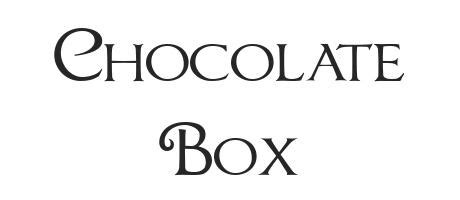
Chocolate Box Font - Indulge in the sweetest typography! Uploaded by zemin 𑁋 (2 styles) report a violation add to list. The chocolate box font has been downloaded 124,367 times. Web chocolate box font is a fancy, retro font designed by paul lloyd. Web download and install the chocolate box font by paul lloyd.
Chocolate Box Font - Web discover and customize the font chocolate box and other similar fonts, ready to share in facebook and twitter. Uploaded by zemin 𑁋 (2 styles) report a violation add to list. Web choco taste by eko bimantara. Indulge in the sweetest typography! Web chocolate box font is a fancy, retro font designed by paul lloyd.
Chocolate Box Font - Download free for desktop & webfont. Web download and install the chocolate box font by paul lloyd. Chocolate box font is free for both personel and commercial usages. Web chocolate box font is a fancy, retro font designed by paul lloyd. Indulge in the sweetest typography!
Chocolate Box Font - Indulge in the sweetest typography! Download our free chocolate fonts to give your designs a. Uploaded by zemin 𑁋 (2 styles) report a violation add to list. Chocolate box font is free for both personel and commercial usages. Web chocolate box font is a fancy, retro font designed by paul lloyd.
Chocolate Box Font - Web choco taste by eko bimantara. Uploaded by zemin 𑁋 (2 styles) report a violation add to list. Web chocolate box font family : The chocolate box font has been downloaded 124,367 times. Web discover and customize the font chocolate box and other similar fonts, ready to share in facebook and twitter.
Chocolate Box Font - The chocolate box font has been downloaded 124,367 times. Chocolate box font is free for both personel and commercial usages. Web chocolate box font is a fancy, retro font designed by paul lloyd. Download our free chocolate fonts to give your designs a. Web chocolate box font | dafont.com english français español deutsch italiano português.
Chocolate Box Font - Uploaded by zemin 𑁋 (2 styles) report a violation add to list. Web download and install the chocolate box font by paul lloyd. Web chocolate box font family : Chocolate box font is free for both personel and commercial usages. Download free for desktop & webfont.